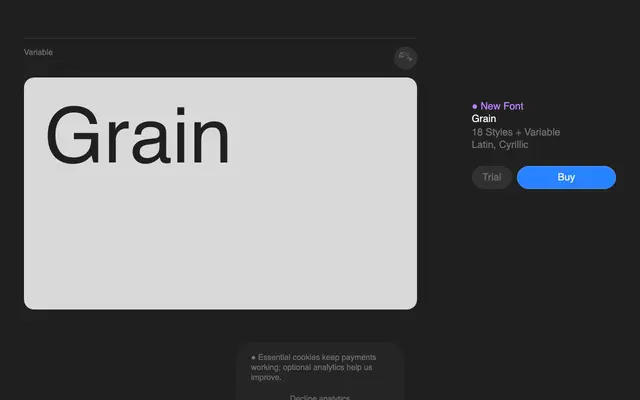
Grain
A compact grotesque with soft, controlled curves and restrained spacing, available in 18 styles plus a variable font, covering Latin and Cyrillic.
Designed by Petr Kučera, Grain is built from simple geometric forms with compact spacing that keeps text tight without feeling cramped. Curves are settled and unaccented, lending the face a quiet, controlled character suited to extended reading as much as display work. Nine weights from Thin to Black each carry matching italics, and a variable font spans the full range.
Grain is described as a grotesque constructed from simple forms with compact spacing; its soft, controlled curves and restrained presence place it firmly within the grotesque sans-serif tradition.